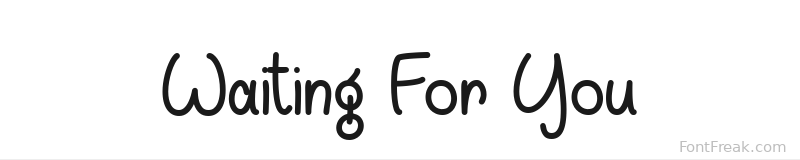
FemilaAuthenty, created by Situjuh Nazara, is a unique handwritten font that exudes a casual yet refined charm. This font falls within the script category, making it ideal for projects that require a personal touch. Its playful strokes and slightly varied weight give it a distinctive character, while the smooth curves and natural flow make it easy to read. The spacing is well-balanced, ensuring that each letter connects seamlessly, enhancing its handwritten appeal.
FemilaAuthenty is well-suited for a variety of creative applications. It excels in wedding invitations, where its warm and inviting style can evoke a sense of romance. Additionally, it works beautifully for personalized greeting cards, allowing users to convey heartfelt messages with flair. The font also shines in restaurant menus, offering a whimsical touch that can make food offerings appear more appealing. Graphic designers can leverage FemilaAuthenty for branding projects, creating logos that stand out through their artistic flair. Content creators will find it particularly useful for social media graphics, where eye-catching design can drive engagement.
What sets FemilaAuthenty apart is its ability to balance playfulness with elegance, making it versatile for both casual and formal applications. This font is not just a typeface; it’s an artistic expression that invites creativity and personal connection in every use. Whether you’re crafting an invitation or designing a logo, FemilaAuthenty brings a distinctive, authentic touch to your projects.